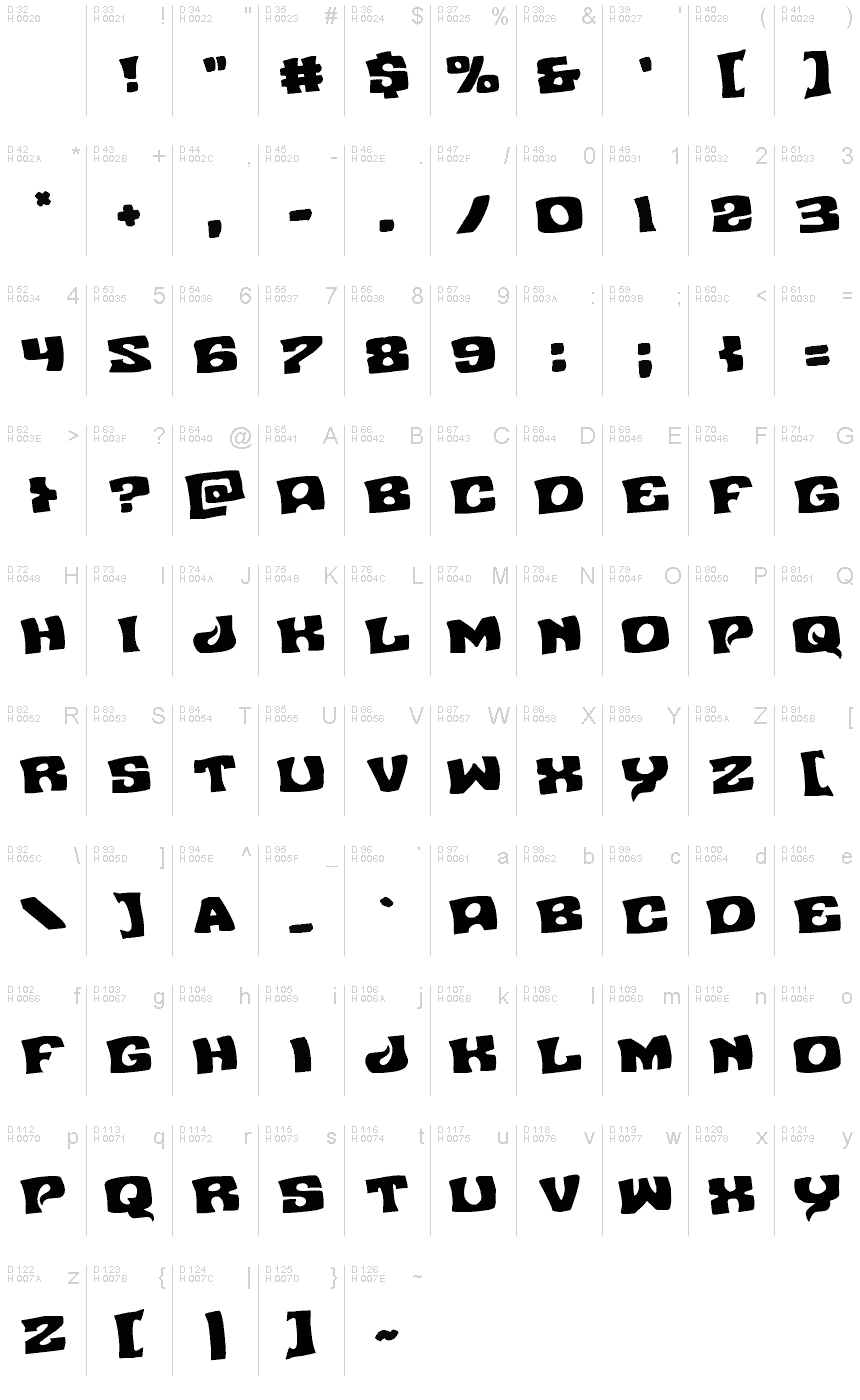
Nuevo Passion Rotated Regular
Nuevo Passion Rotated is a bold, groovy display font that exudes a distinct retro-futuristic vibe. Designed by Daniel Zadorozny, this expanded font boasts an array of captivating features.
The striking, rotated letterforms create a dynamic, eye-catching aesthetic, making it an excellent choice for posters, album covers, and other design projects that demand attention. Its playful, yet sophisticated, style lends itself well to a range of applications, from product branding to event promotions.
With its unique character and versatility, Nuevo Passion Rotated is a font that can elevate the visual impact of any design.